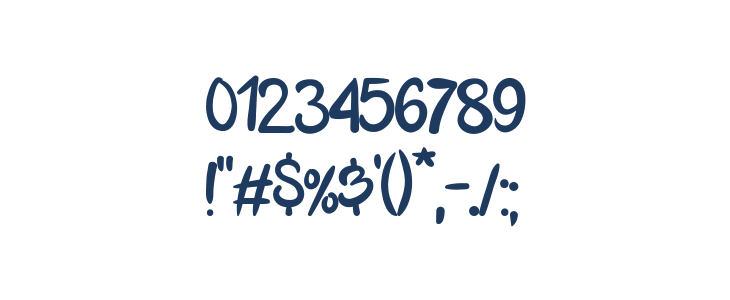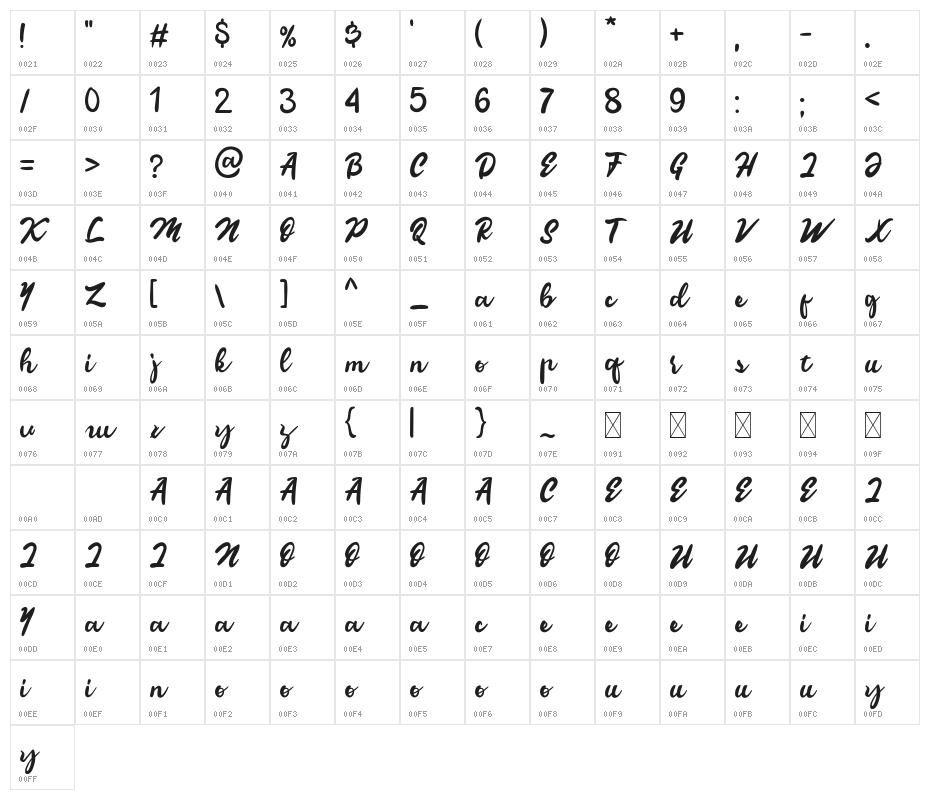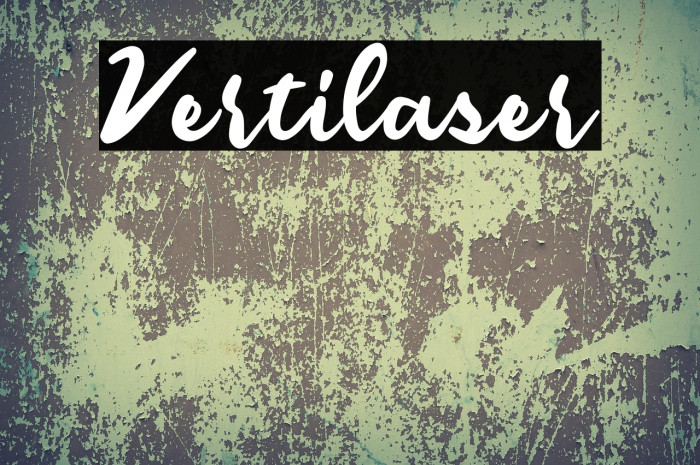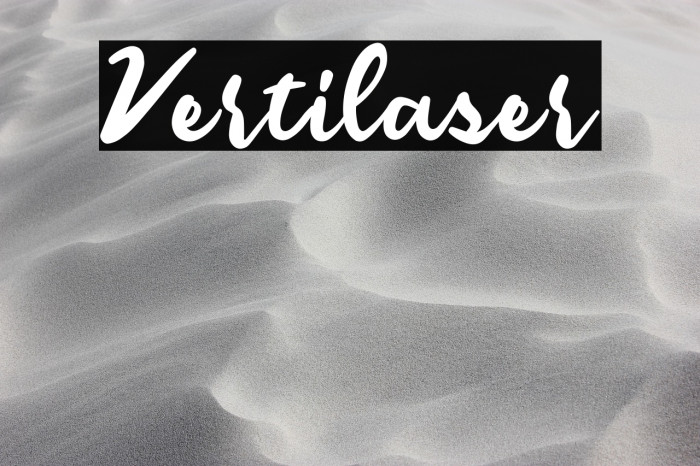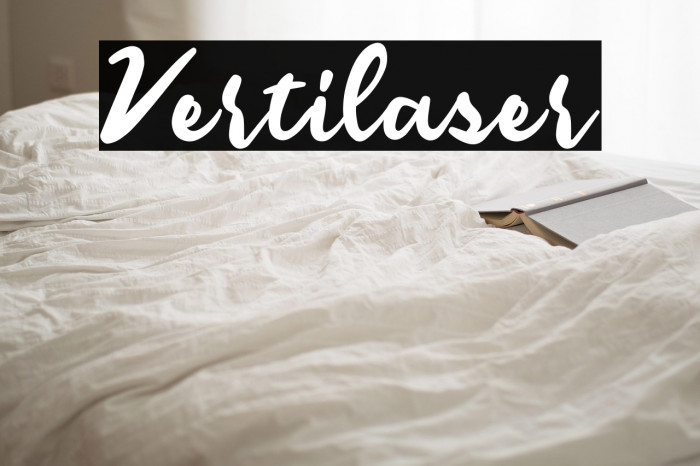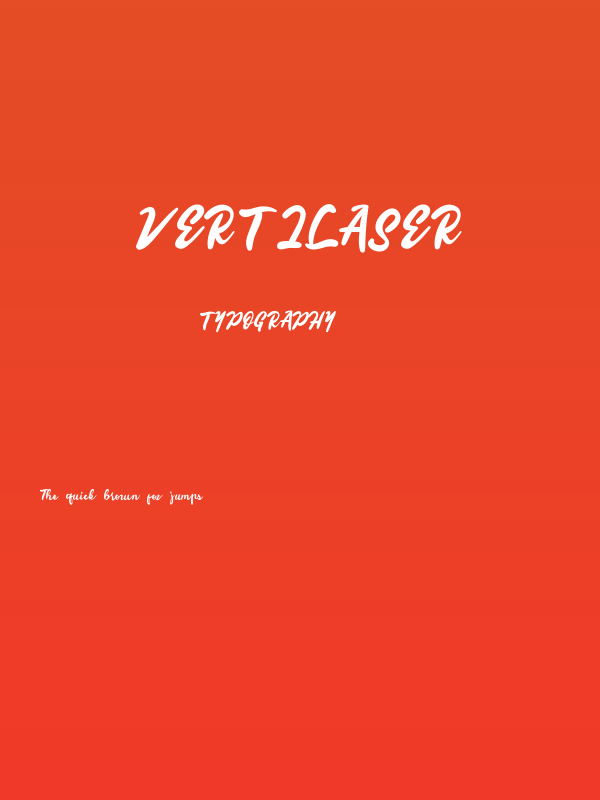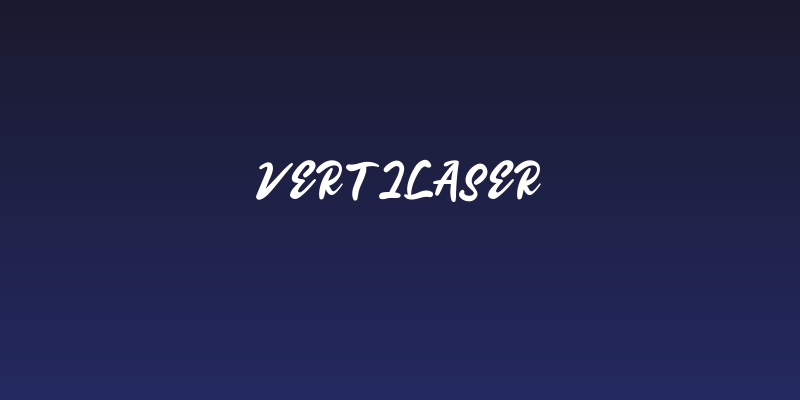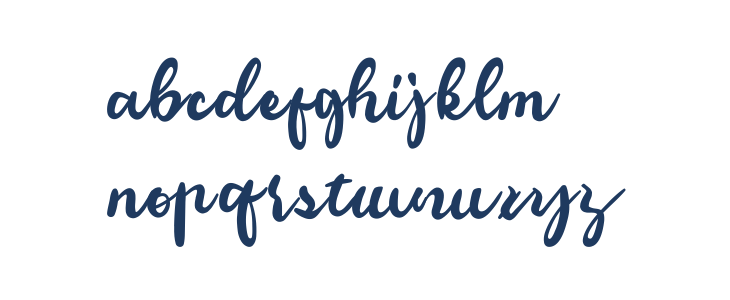
Vertilaser Font
Vertilaser Description
This font features a bold and expressive script style with a dynamic flow, reminiscent of handwritten calligraphy. The uppercase letters are elegantly curved, with a slight slant that adds a sense of movement and energy. The lowercase letters maintain a consistent style, with smooth connections between each character, enhancing the fluidity of the text. Numbers are bold and rounded, matching the overall aesthetic of the letters. Special characters are designed to complement the script style, maintaining the same bold and flowing characteristics. This font is ideal for projects that require a personal touch or a creative flair.
| Use Case | Logos, Headlines, Invitations |
| Proposed Projects | Ideal for wedding invitations, greeting cards, branding, and logo design. |